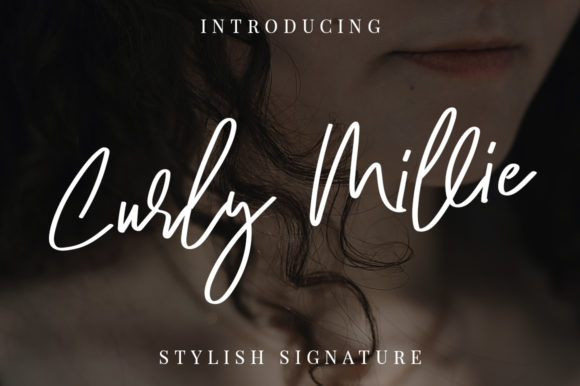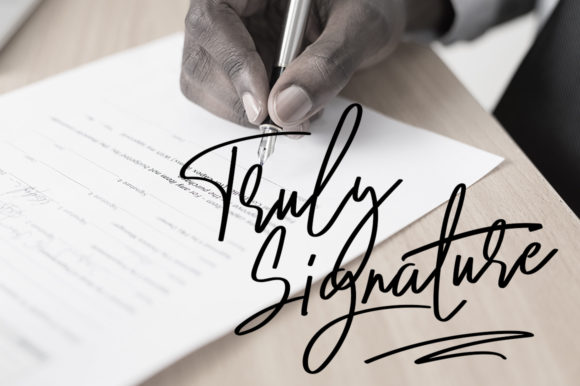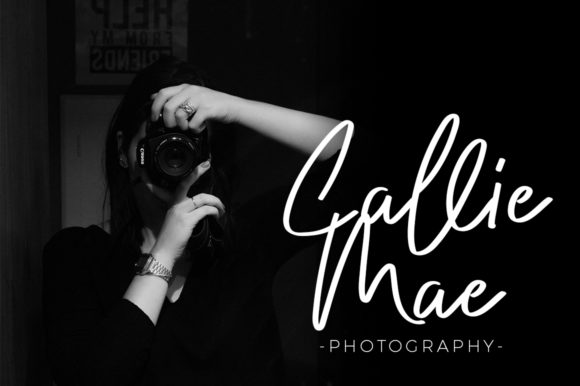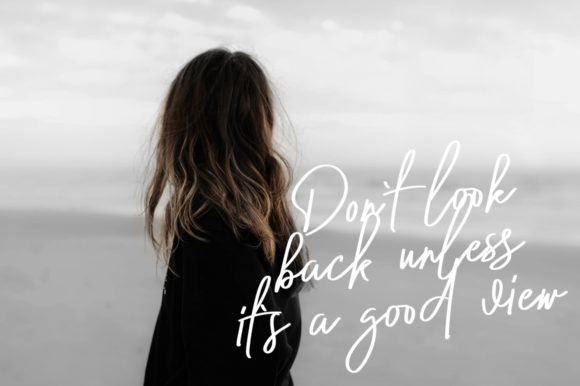
Curly Millie Font
About Curly Millie Font
Curly Millie is modern and relaxed handwritten font. Fall in love with its incredibly versatile style and use it to create gorgeous wedding invitations, beautiful stationary art, eye-catching social media posts, and much more!